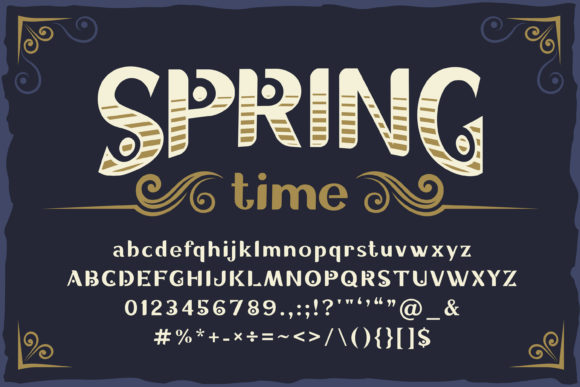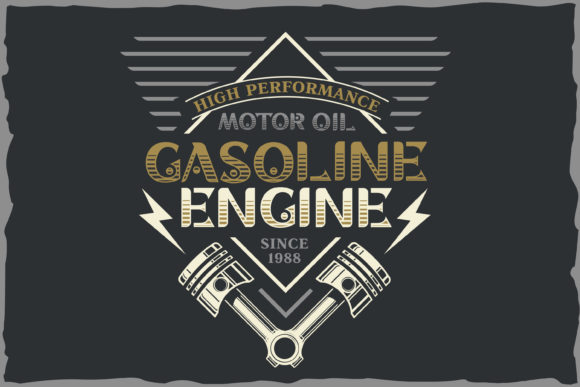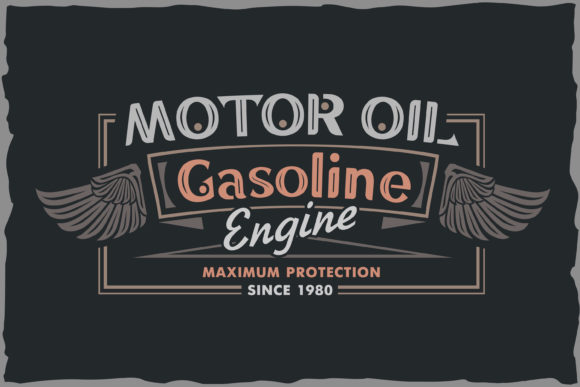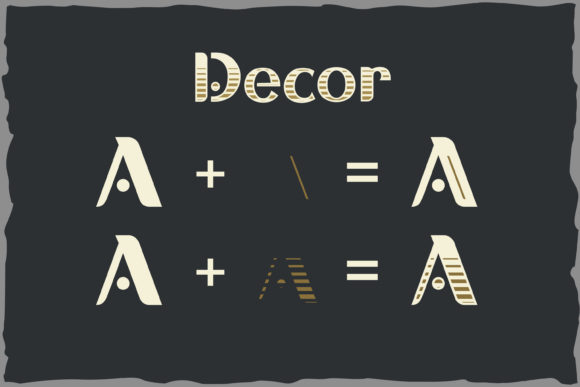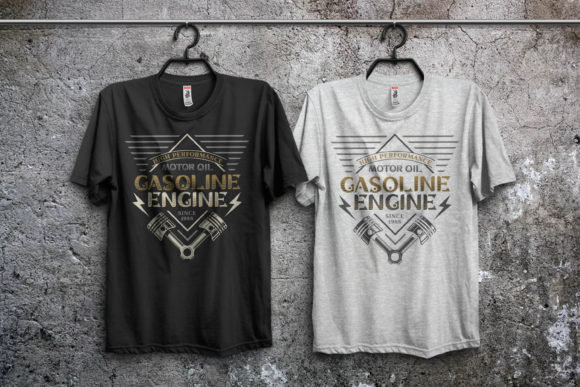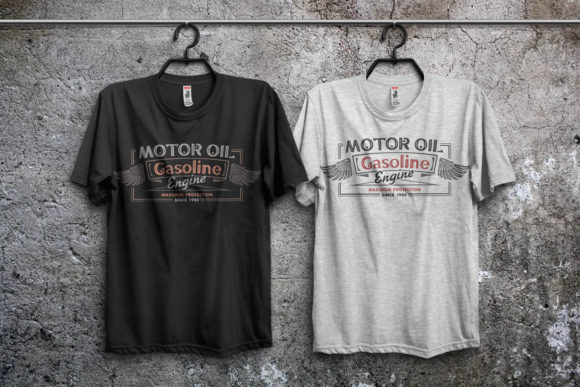
Introduction to Seignior Font Font
Fonts play a crucial role in design, and the Seignior Font font is a typeface that brings both character and versatility to any project. Whether you’re working on a branding project, a website, or a print design, the Seignior Font font offers a unique style that can elevate your work.
Seignior is a daring and vintage styled display font.
This font reads as strong, confident, and dynamic and can add tons of nostalgic character to your designs .
Key Features of Seignior Font Font
Why Choose Seignior Font Font?
The Seignior Font font is more than just a typeface – it’s a design tool that helps you communicate your message with style and clarity. Its unique character set and versatile design make it suitable for a wide range of applications, from elegant invitations to bold headlines.
With its carefully crafted letterforms and balanced proportions, the Seignior Font font ensures readability and visual appeal across all mediums.
What makes Seignior Font font special?
The Seignior Font font stands out with its unique design, exceptional readability, and versatility across various design applications.